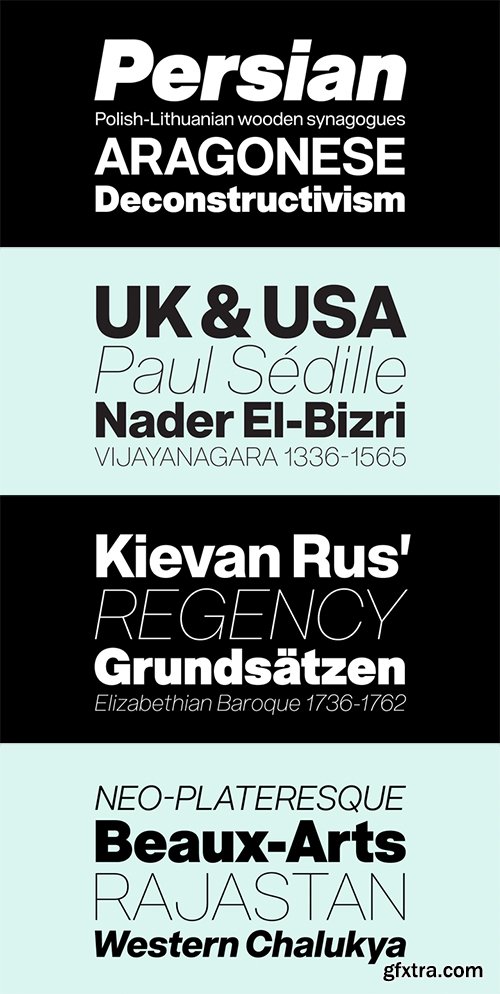
- Acronym is a highly refined neo-grotesque sans serif based on Helvetica and its modern-day variants. Although it stays true to the essence of ‘Helvetica’ conceptually, it’s not restrained by an attempt at upholding historical accuracy or formalities. Acronym pays homage to the original by staying in tight conceptual alignment, yet deviates freely within those same bounds. Everything from the metrics, x-height, descender length, character width, contrast, through to the drawing, structure, refinement, and detail of each letterform is uniquely its own.